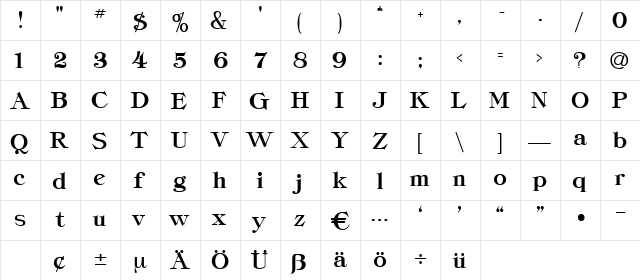
Advokat Regular Font Preview
Advokat Regular
Advokat Regular Font Details
Design Context for Advokat Typeface
Advokat offers clean, dependable letterforms without strong stylistic allegiance, making it a practical choice for designers who need flexibility.
Pro Tip: Use Advokat in both headline and body roles to test its range before committing to a single application.